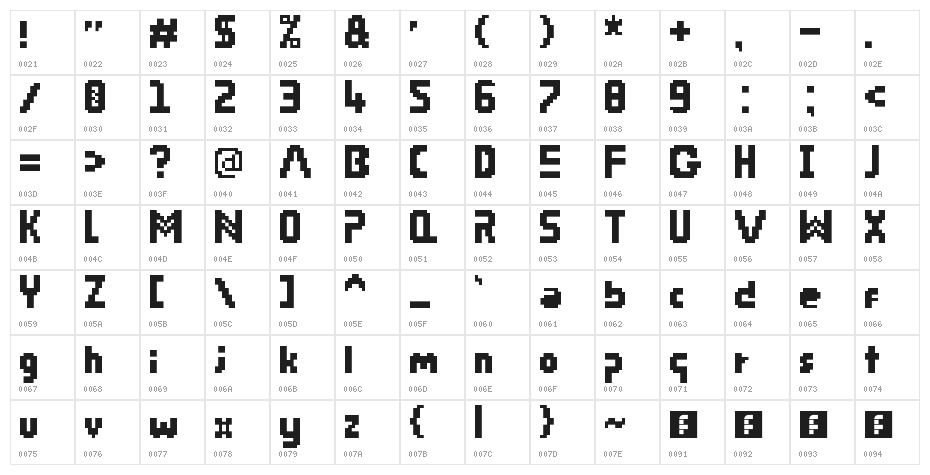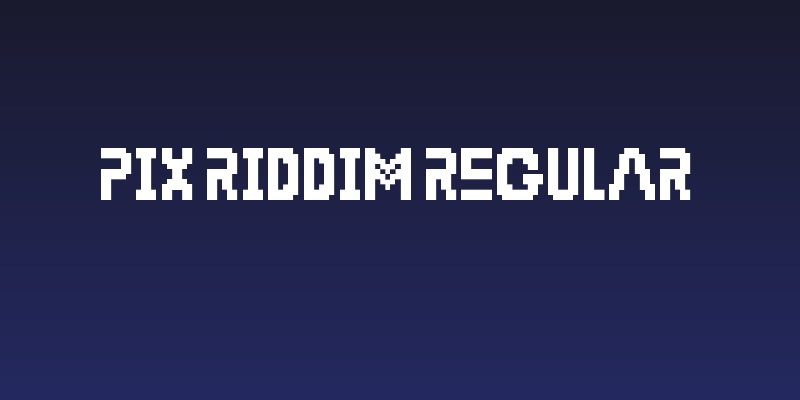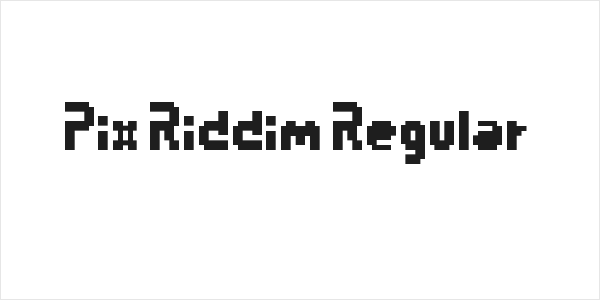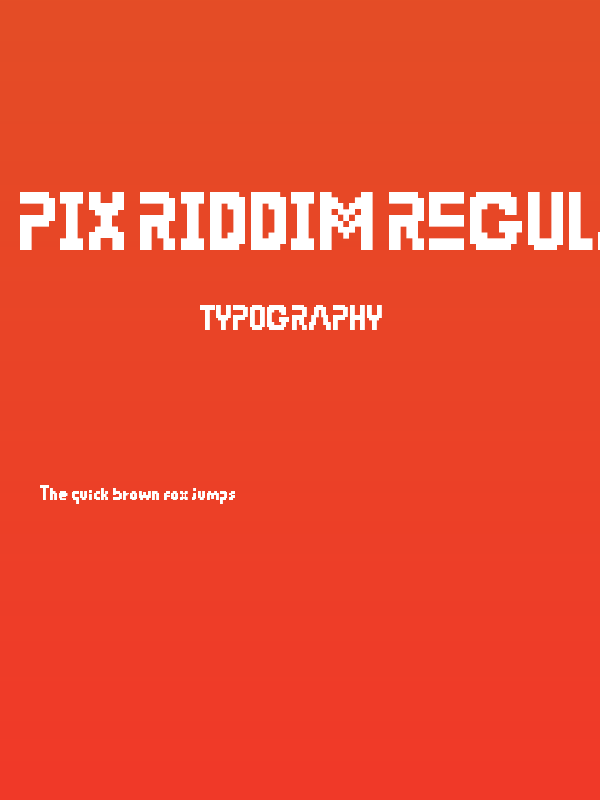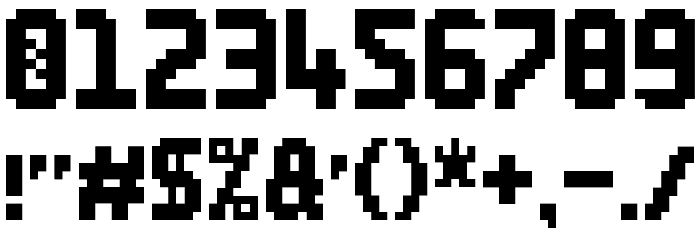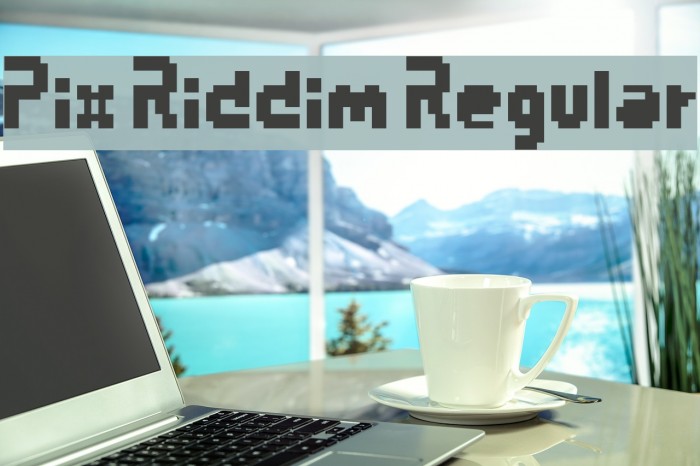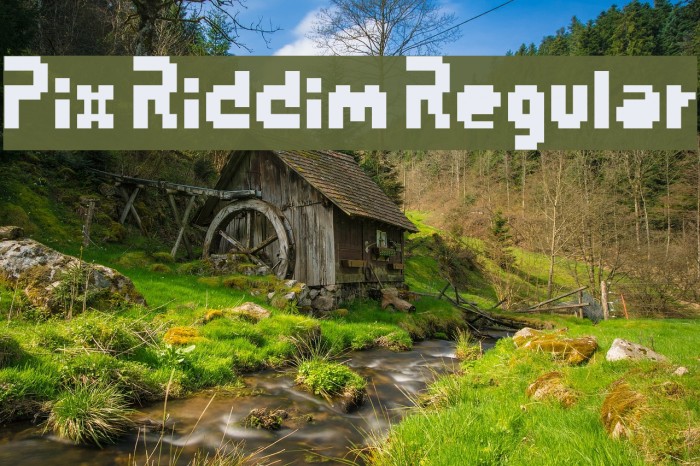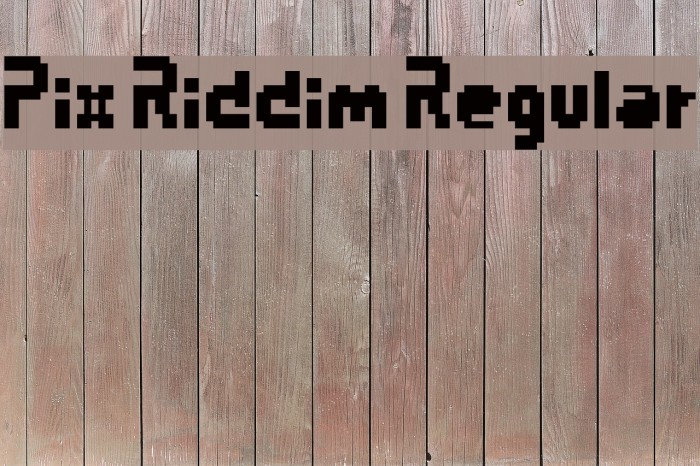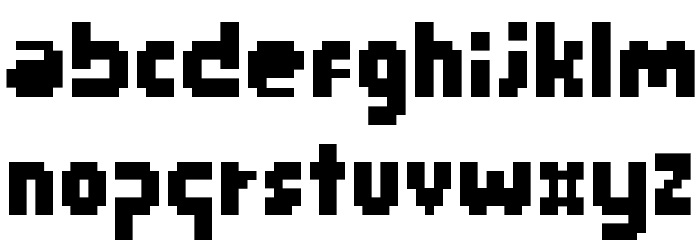
Pix Riddim Regular Font
Pix Riddim Regular Description
This font features a bold, pixelated design reminiscent of classic video game graphics. Each character is constructed with a blocky, grid-like appearance, giving it a distinctly retro and digital feel. The uppercase and lowercase letters maintain a consistent height, enhancing the uniformity of the typeface. Numbers and special characters follow the same pixelated style, ensuring a cohesive look across all text elements. The font's geometric structure makes it highly legible at various sizes, while its unique style adds a playful and nostalgic touch to any design.
| Proposed Projects | Ideal for video game design, retro-themed posters, digital art projects, and any creative work seeking a nostalgic or playful vibe. |